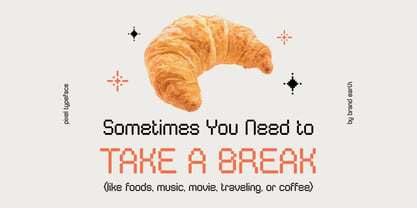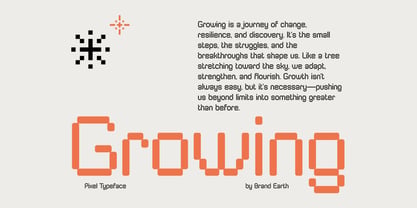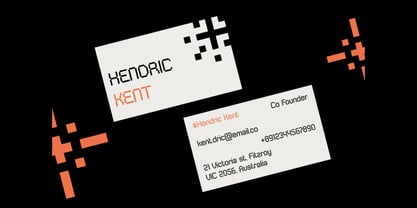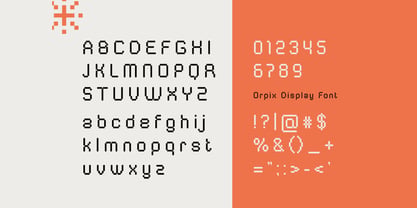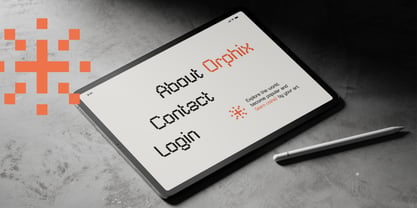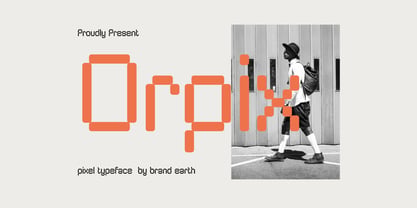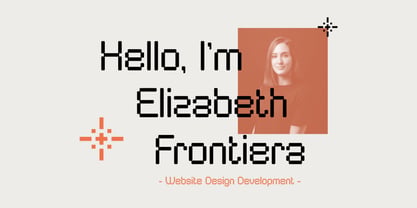
Orpix
by Brandearth
The Orpix Font Family was designed by Moch Rasjid Wiyono and published by Brandearth. Orpix contains 1 styles. More about this family
Orpix is a modern pixel-inspired display font built from modular block segments that create a clean digital aesthetic. Designed with rounded pixel corners and structured grid-based construction, this typeface blends retro bitmap influence with contemporary minimal design. Orpix is highly relevant for web design, gaming projects, startup branding, app interfaces, digital posters, tech campaigns, and creative social media graphics. Its pixel structure makes it especially suitable for website headers, landing pages, esports visuals, NFT projects, digital product branding, and modern tech-focused marketing materials. It bridges retro gaming nostalgia with contemporary UI aesthetics.
Designers: Moch Rasjid Wiyono
Foundry: Brandearth